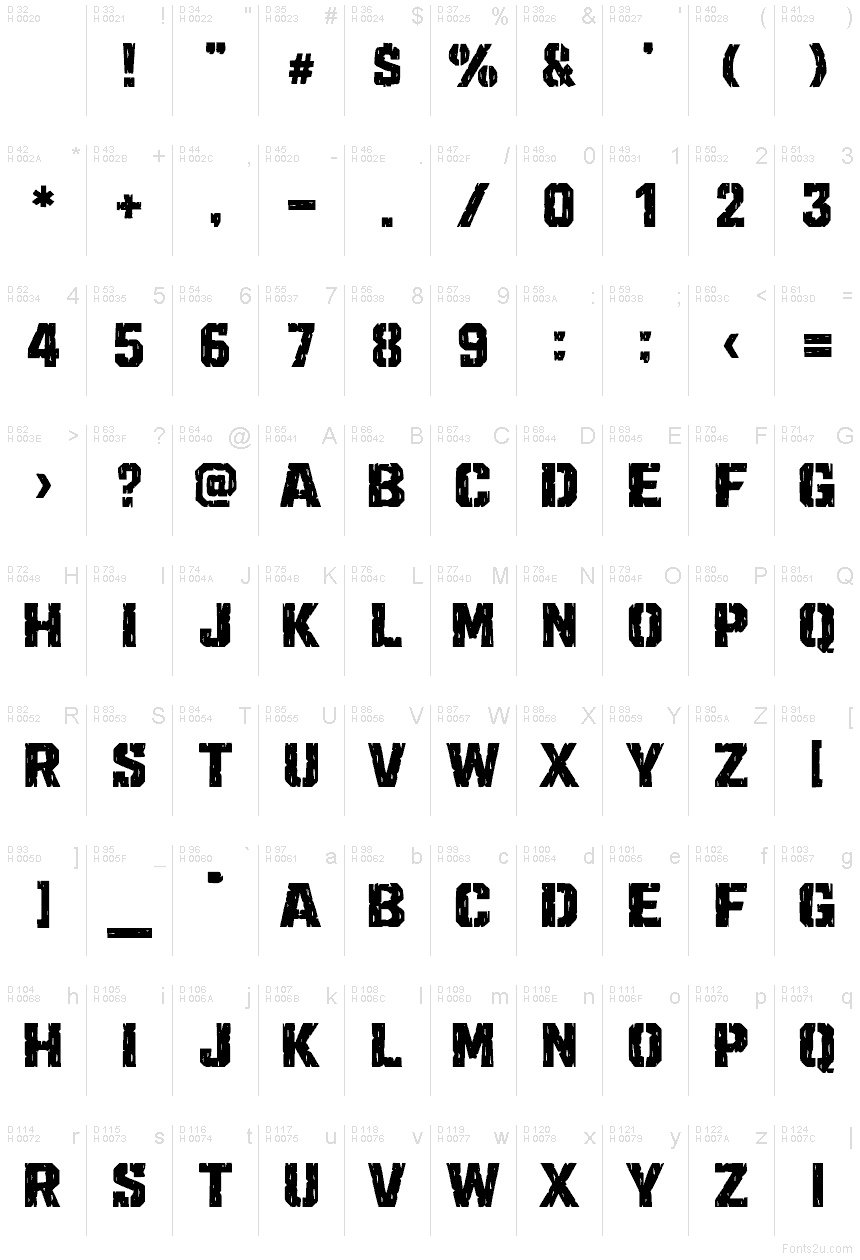
DeltaForce
DeltaForce font by BlackFridayFont FMF is a free eroded military display font that hits like a stamped crate fresh off the tarmac. Heavy block forms carry chipped edges and paint-scuffed gaps, so your words feel battle-tested without losing legibility. The rhythm is tight and commanding, delivering that rugged field-brief energy in an instant.
Using DeltaForce, you can brand airsoft teams, gear up survival event posters, add grit to gaming covers, push tactical apparel tags, or title action trailers, YouTube thumbnails, and concert flyers. This free font shines in large sizes where the distress reads clearly; pair it with a clean condensed sans for supporting text to keep the message sharp.